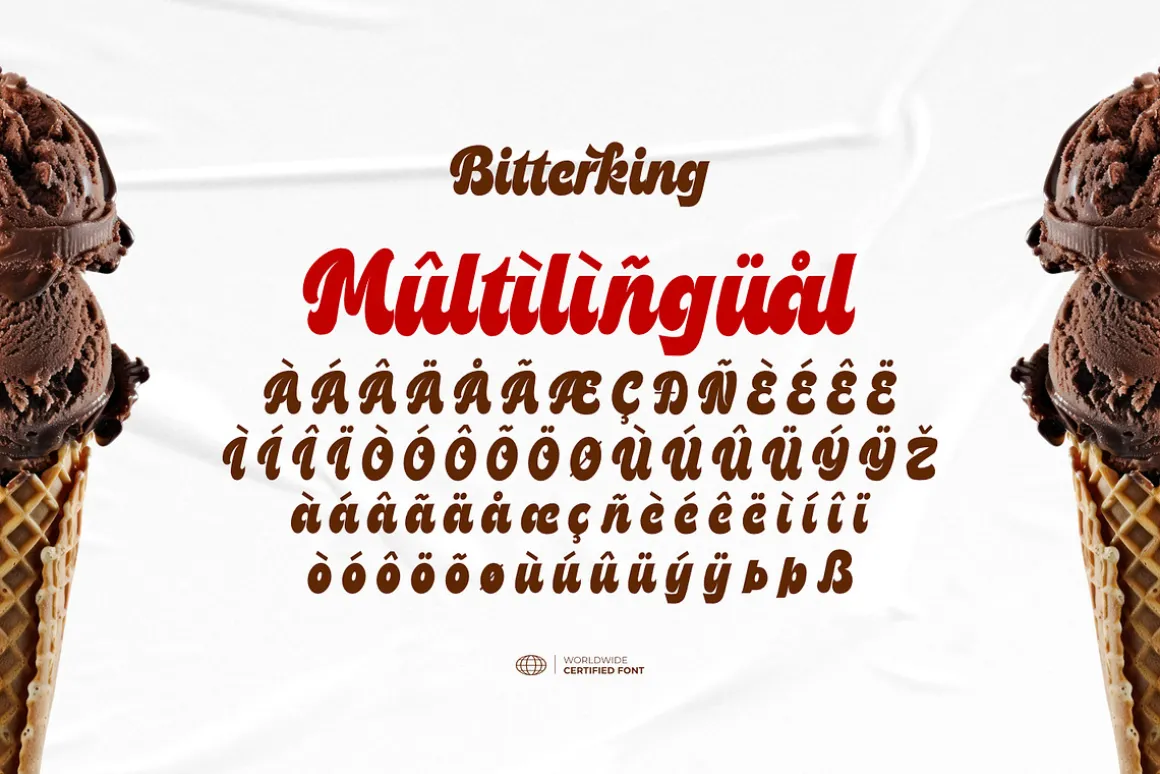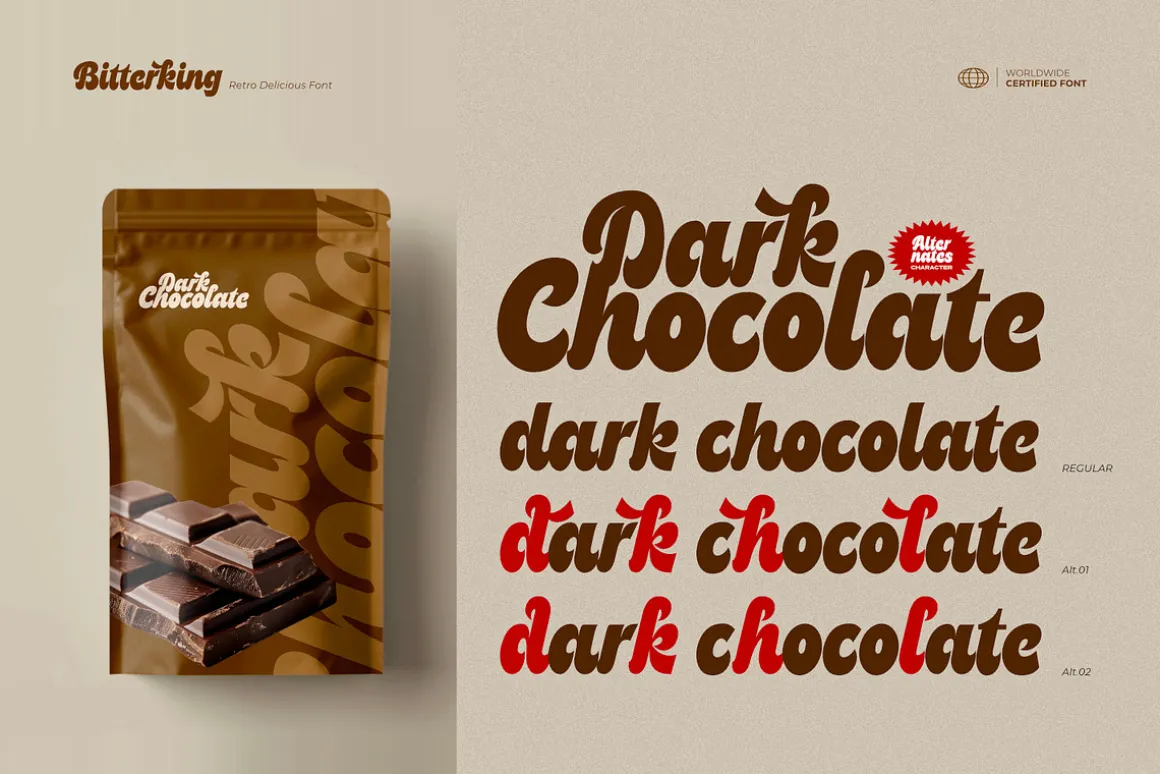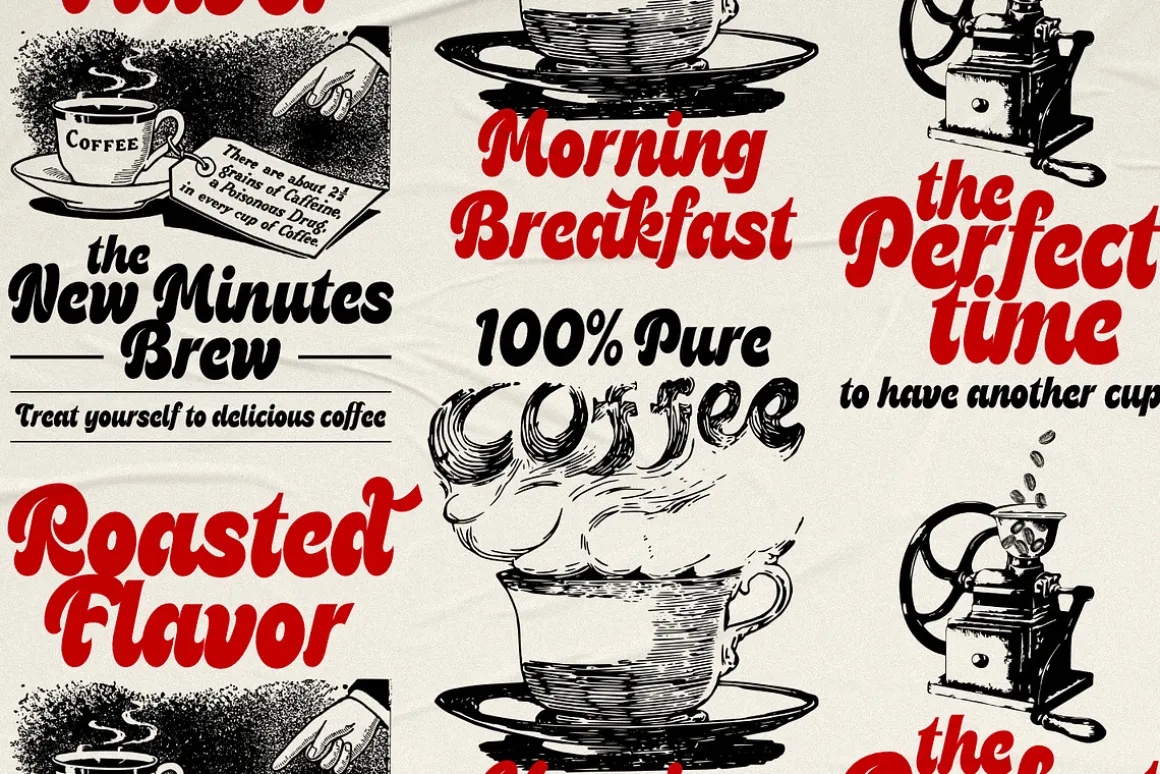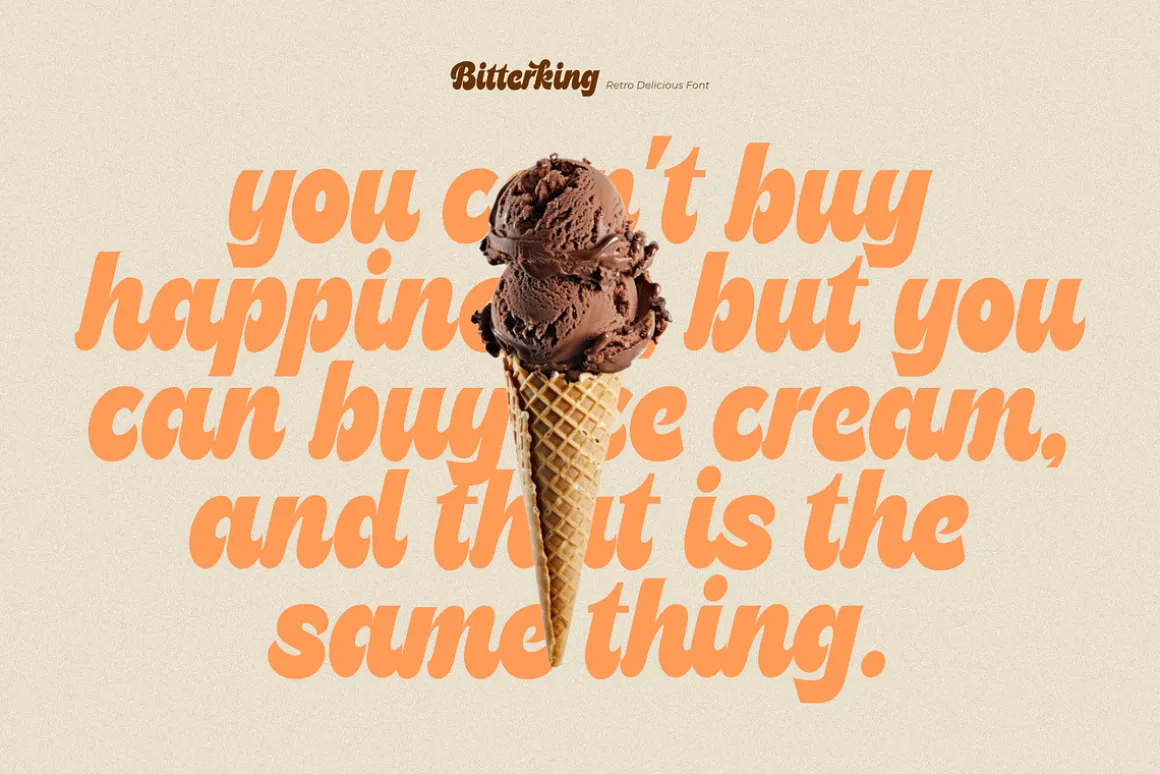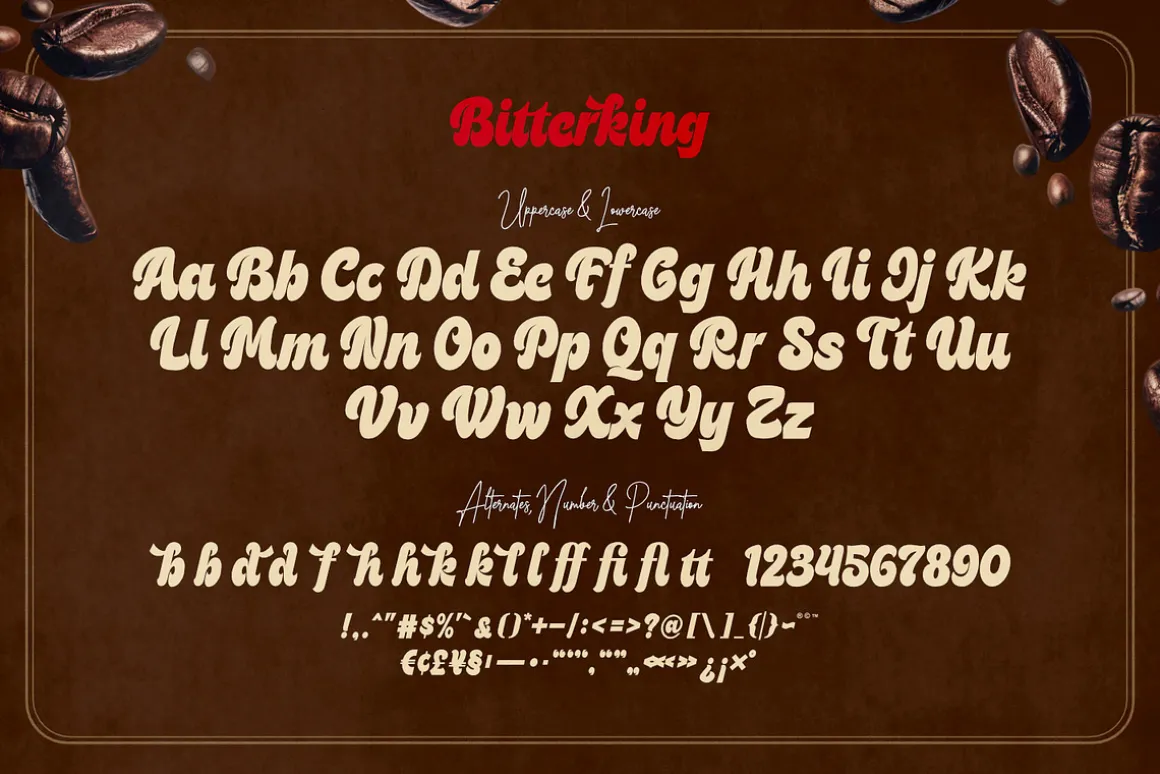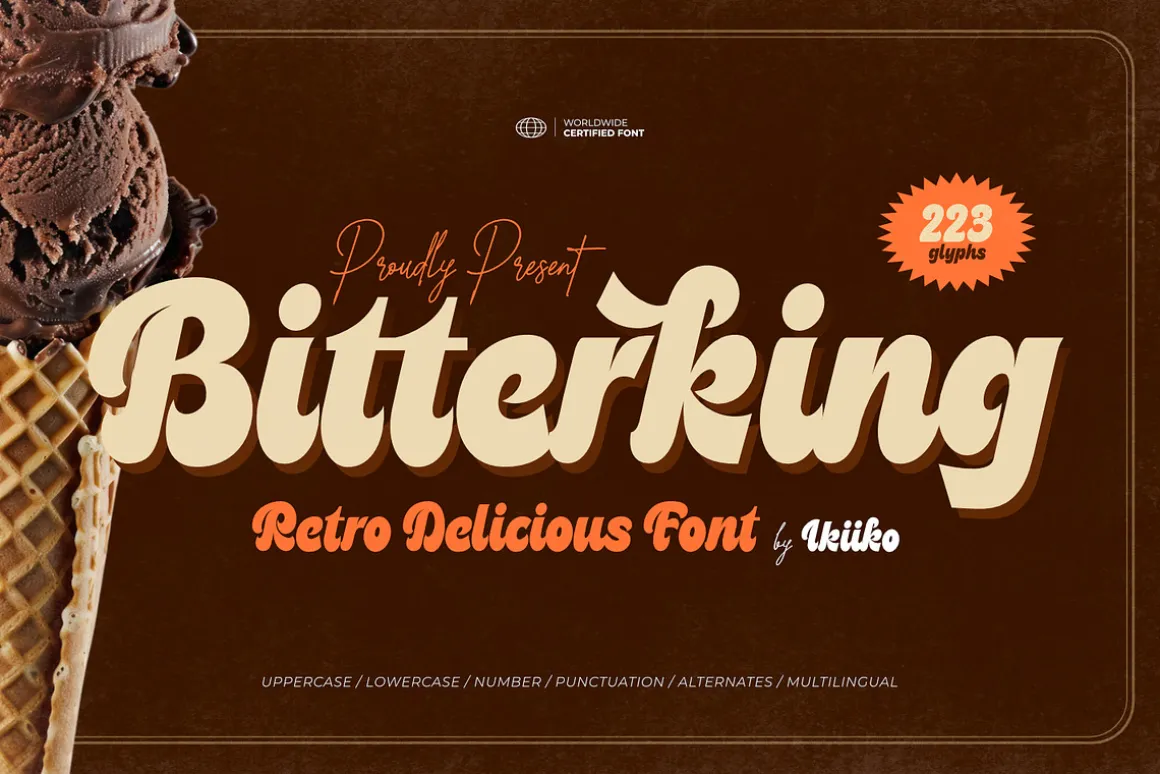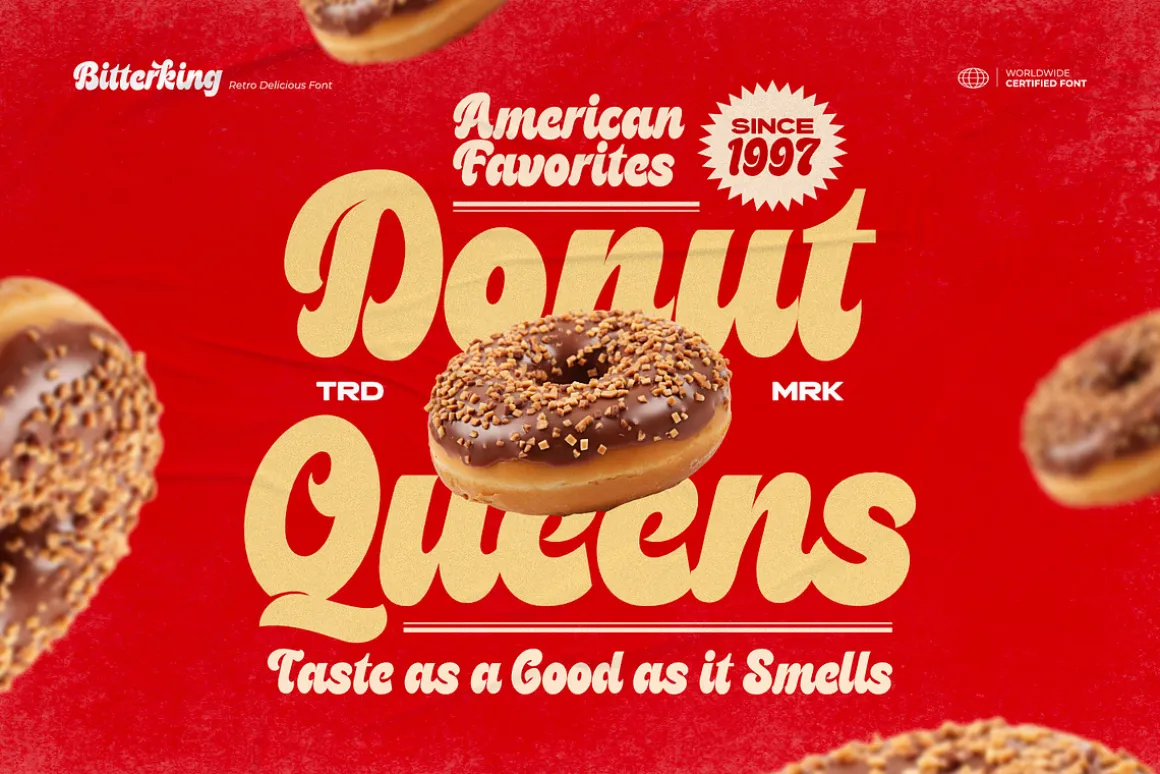
Proudly Present Bitterking – Retro Delicious Font, created by ikiiko.
Bitterking is a bold typeface that perfectly embodies the nostalgic charm of retro aesthetics. Its bold strokes and playful curves evoke a sense of indulgence, making it an ideal choice for ice cream, chocolate, and food & beverages products.
This typeface adds a whimsical touch to any project with its vintage-inspired design, which perfectly embodies the essence of old-fashioned sweetness. Bitterking adds a unique flair to your packaging, branding, or advertising that satisfies the senses and draws attention to your mouthwatering products.
- Uppercase & Lowercase
- Numbers & Punctuation
- Alternates & Ligature (Bonus)
- Multilingual Support